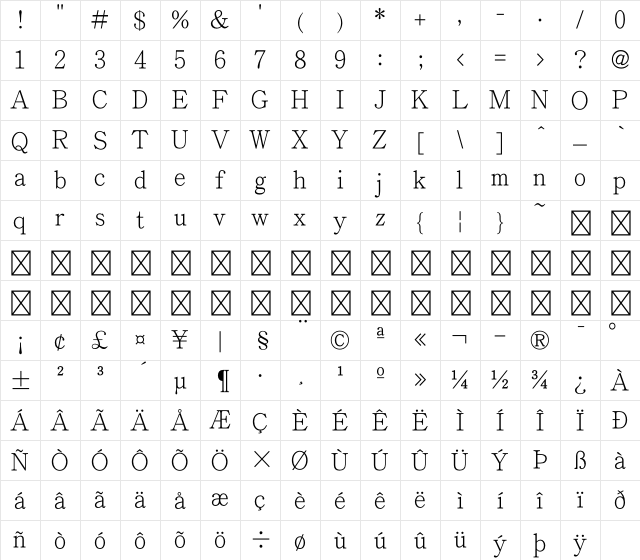
RA HanaKocho Std Lt
Style: Lt
Foundry: Arphic Technology Co., Ltd.
Designer: Arphic Technology Co., Ltd.
Design Context for RA HanaKocho Std
RA HanaKocho Std is a composed and adaptable typeface that performs quietly and consistently across a wide range of design contexts. Its slender proportions lend an understated elegance to any composition.
Who designed the RA HanaKocho Std Lt font?